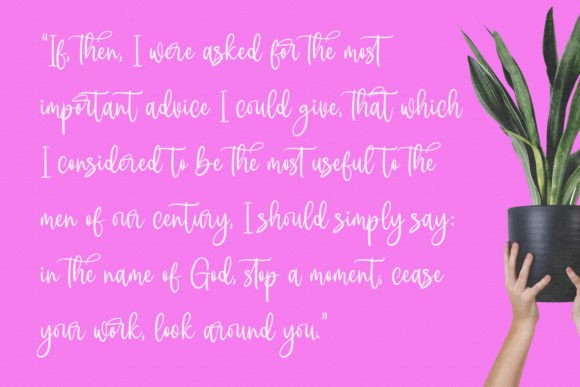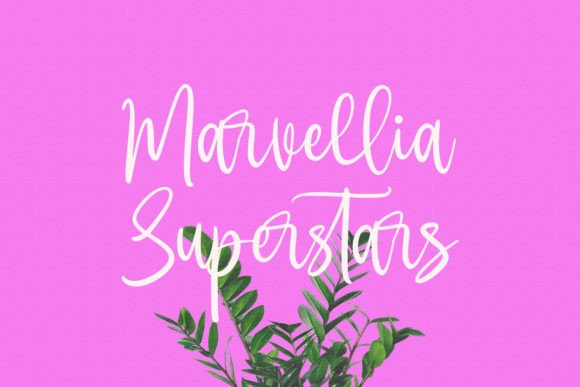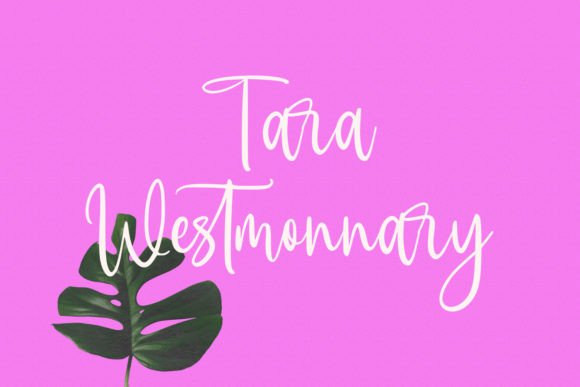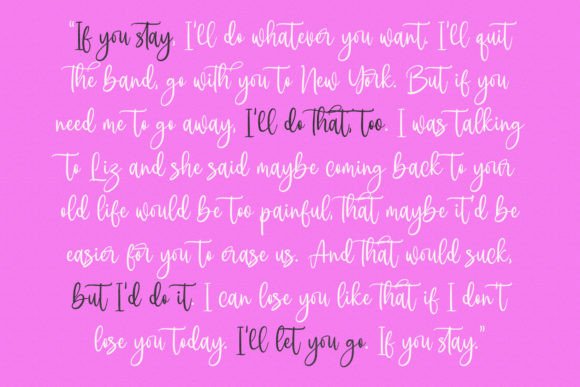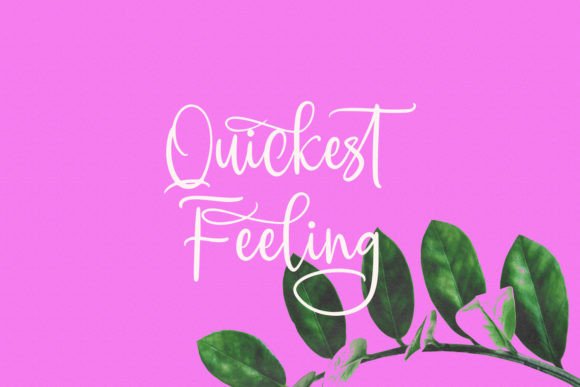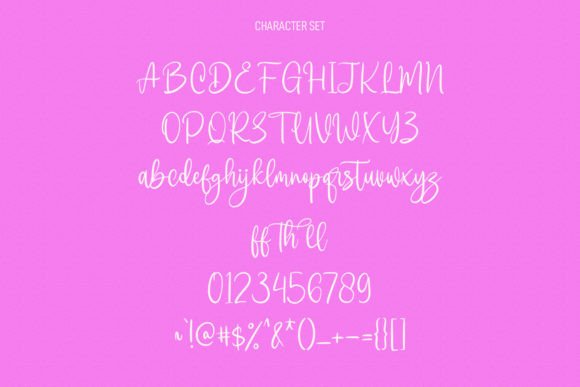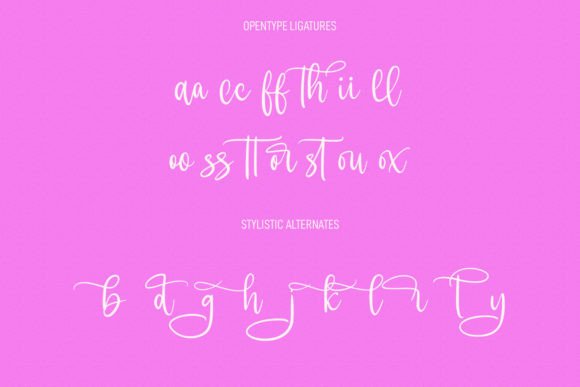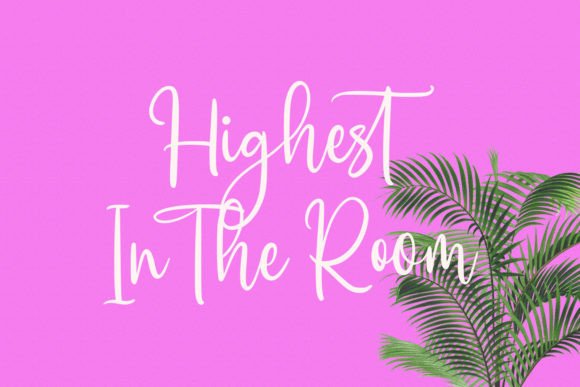
Cleverest Font
About Cleverest Font
“Cleverest” is a charming and adorable script font that brings sweetness to any design. Its versatile and endearing qualities make it an incredible asset for your font library, as it has the potential to elevate a wide range of creative projects, regardless of the topic or theme.
The sweet and adorable nature of “Cleverest” is evident in its script style, which adds a playful and friendly touch to text. This makes it a delightful choice for projects that aim to convey a sense of warmth, approachability, or simply inject a bit of cuteness into the design.
The versatility of “Cleverest” shines through in its ability to adapt to different topics and themes. Whether you’re working on invitations, greeting cards, branding, or any creative endeavor, this font seamlessly integrates, enhancing the overall aesthetic with its charming script.
Adding “Cleverest” to your font library is akin to acquiring a reliable and go-to design tool. Its potential to elevate creations is not limited by a specific niche or style, making it suitable for a broad spectrum of projects. From casual and friendly themes to more formal contexts, “Cleverest” proves to be a versatile companion.
Incorporating “Cleverest” into your designs can transform ordinary text into a visually engaging and adorable element. Its script style imparts a unique character to each letter, adding authenticity and personality to your words.
In summary, “Cleverest” is more than just a font; it’s a sweet and adorable design asset that has the power to enhance and elevate a wide array of creative projects. Its versatility, charm, and adaptability make it a valuable addition to your fonts’ library, ready to infuse cuteness and character into your next creation.